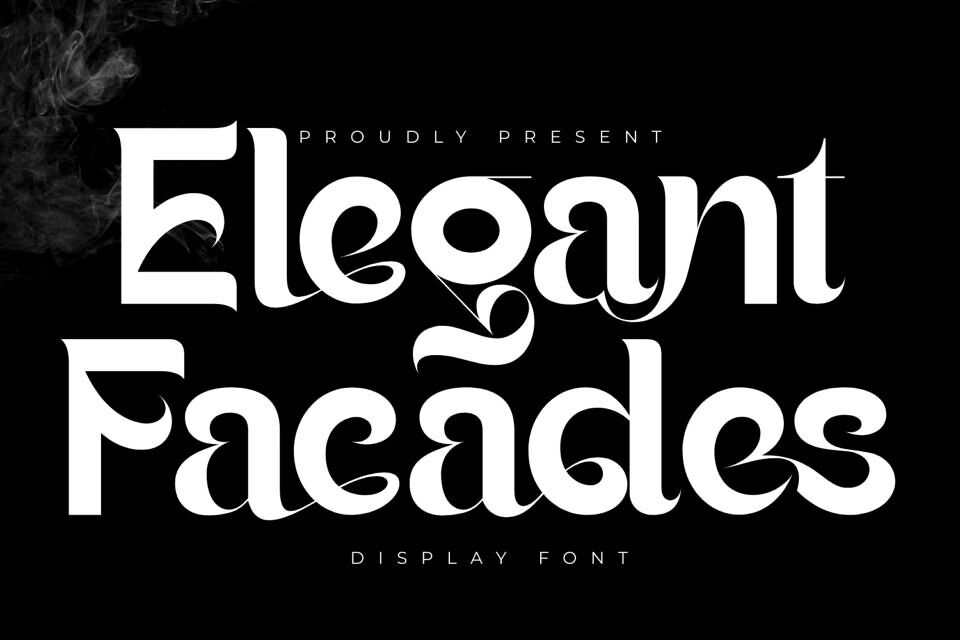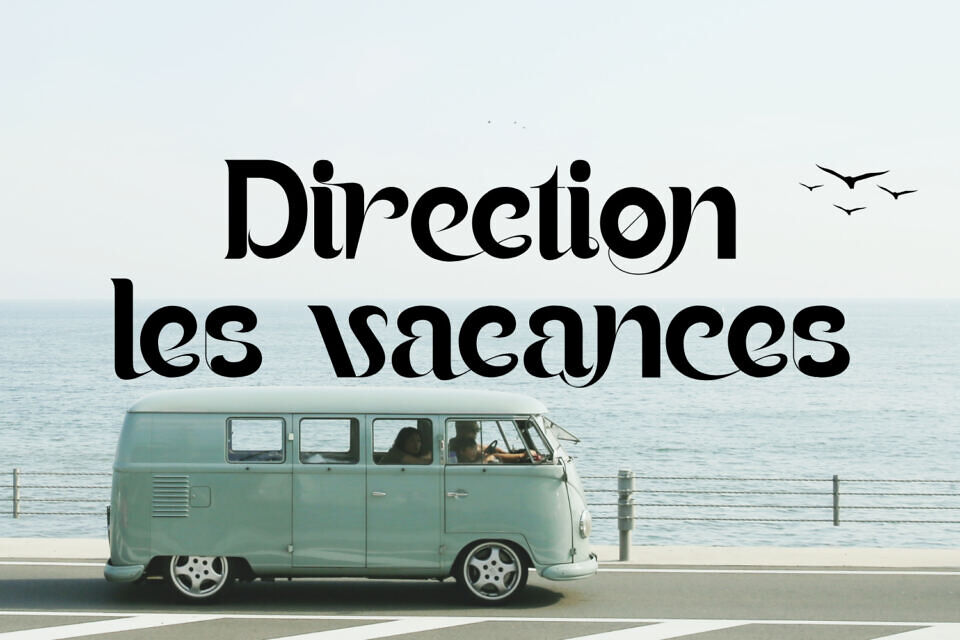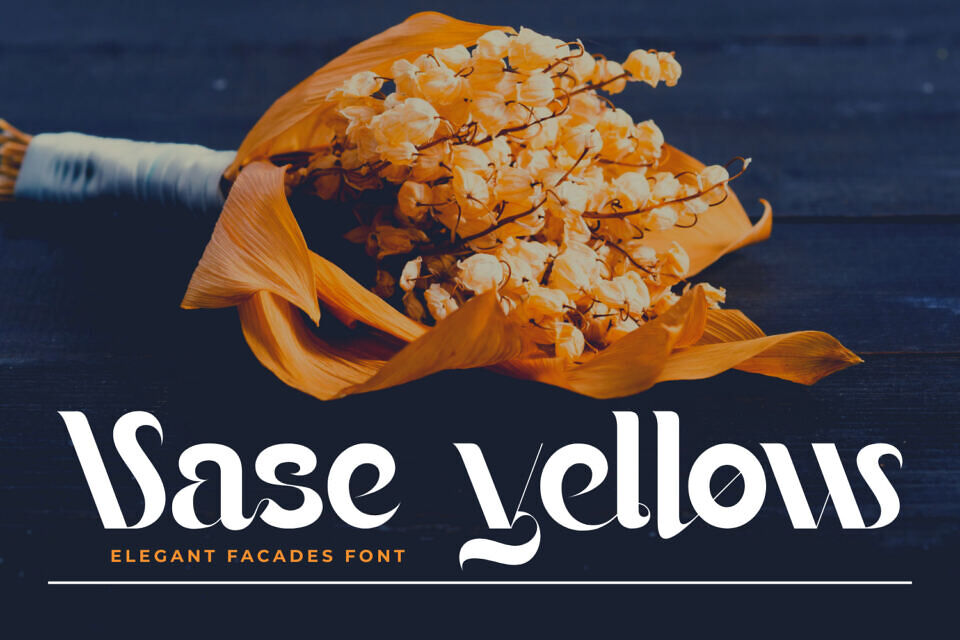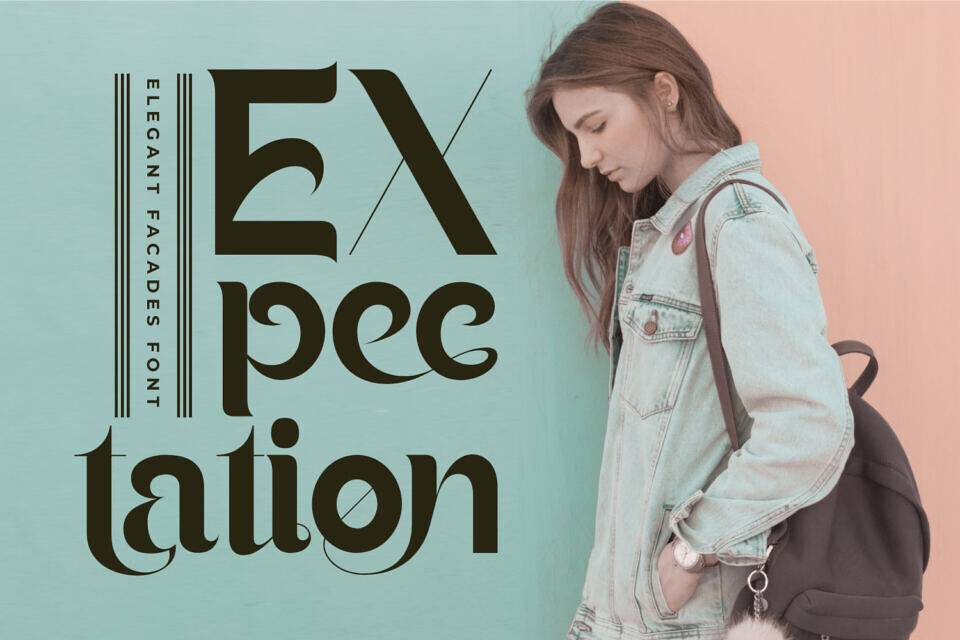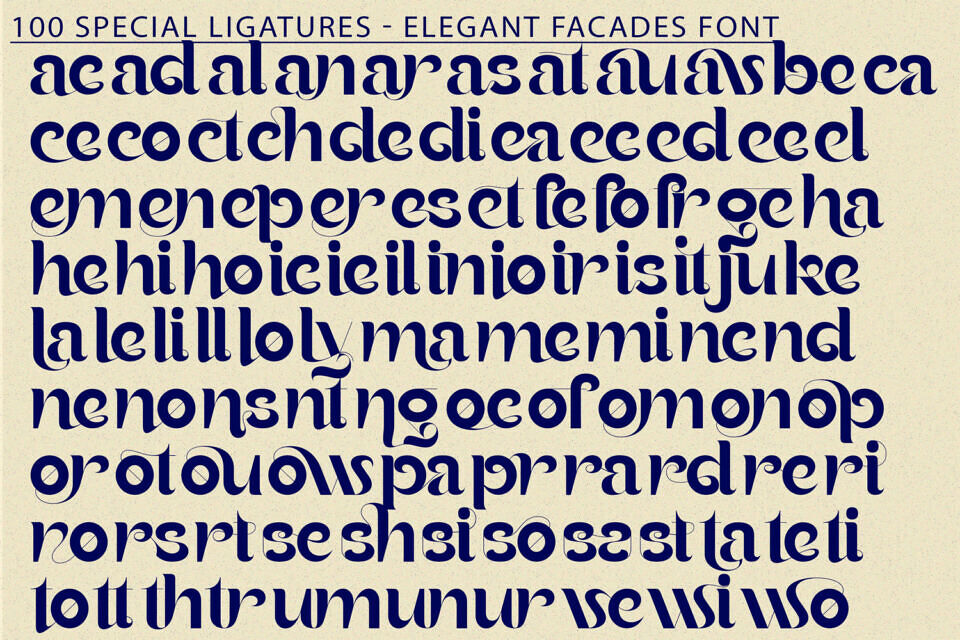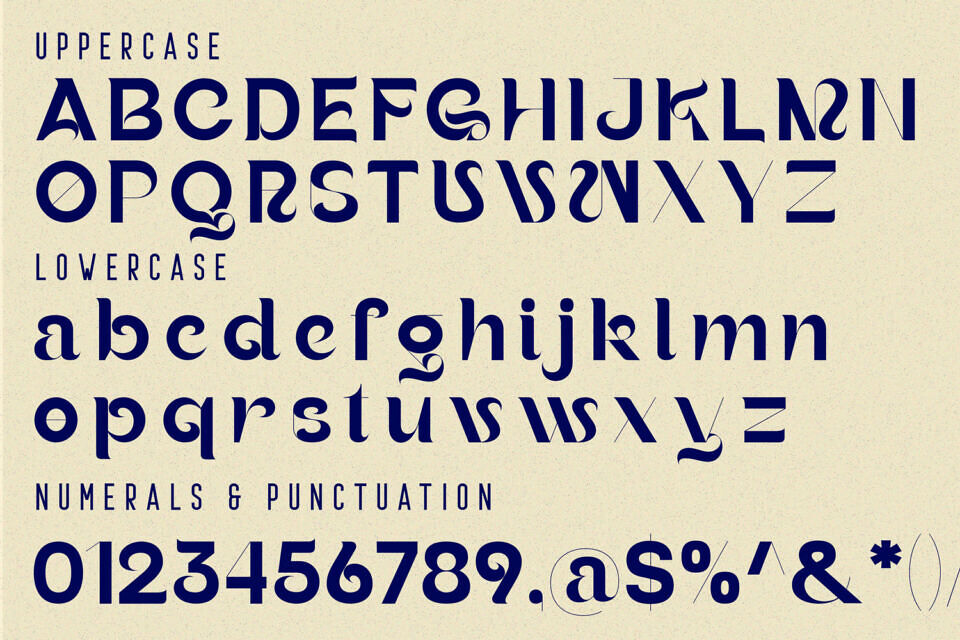
Elegant Facades Font
Elegant Facades is a high-contrast modern sans-serif font that blends classic elegance with contemporary flair. Designed with graceful curves, sweeping terminals, and stylish swashes, this typeface adds a sophisticated touch to any visual identity.
Whether you’re creating a luxury brand logo, an editorial headline, or stylish packaging, Elegant Facades offers a refined typographic voice that’s both modern and timeless.